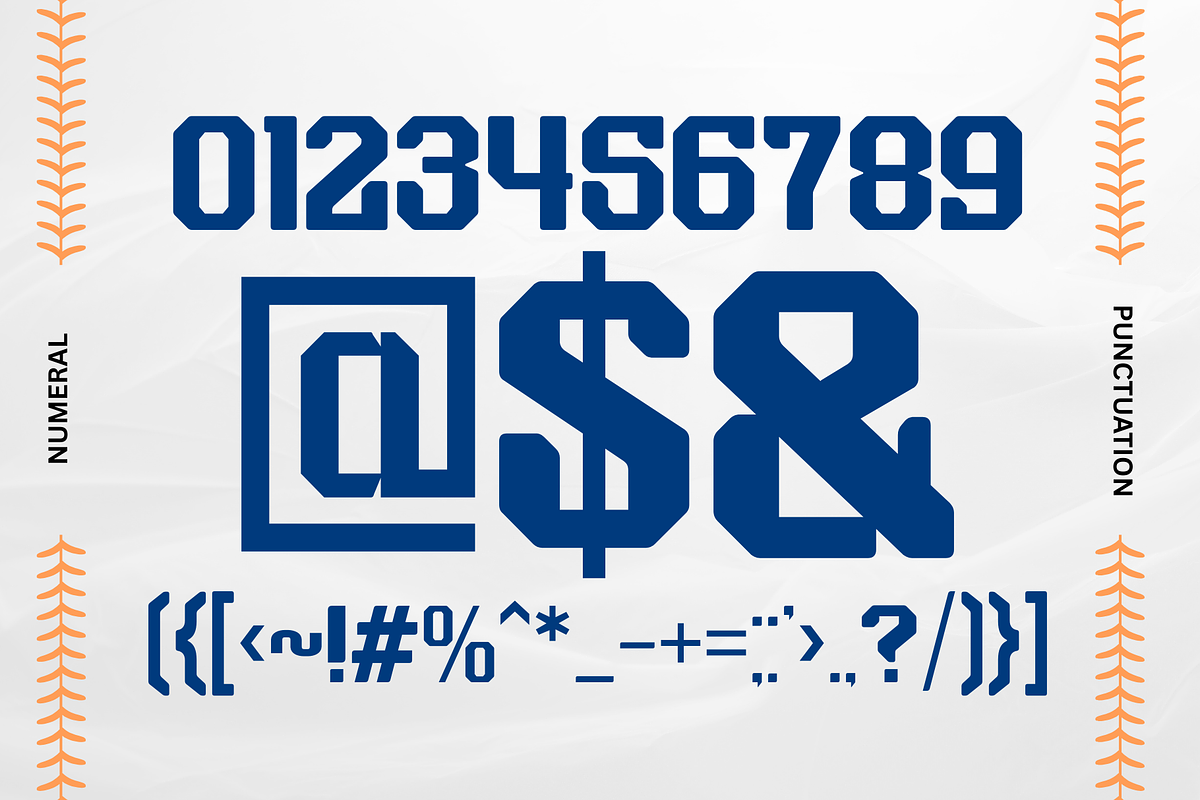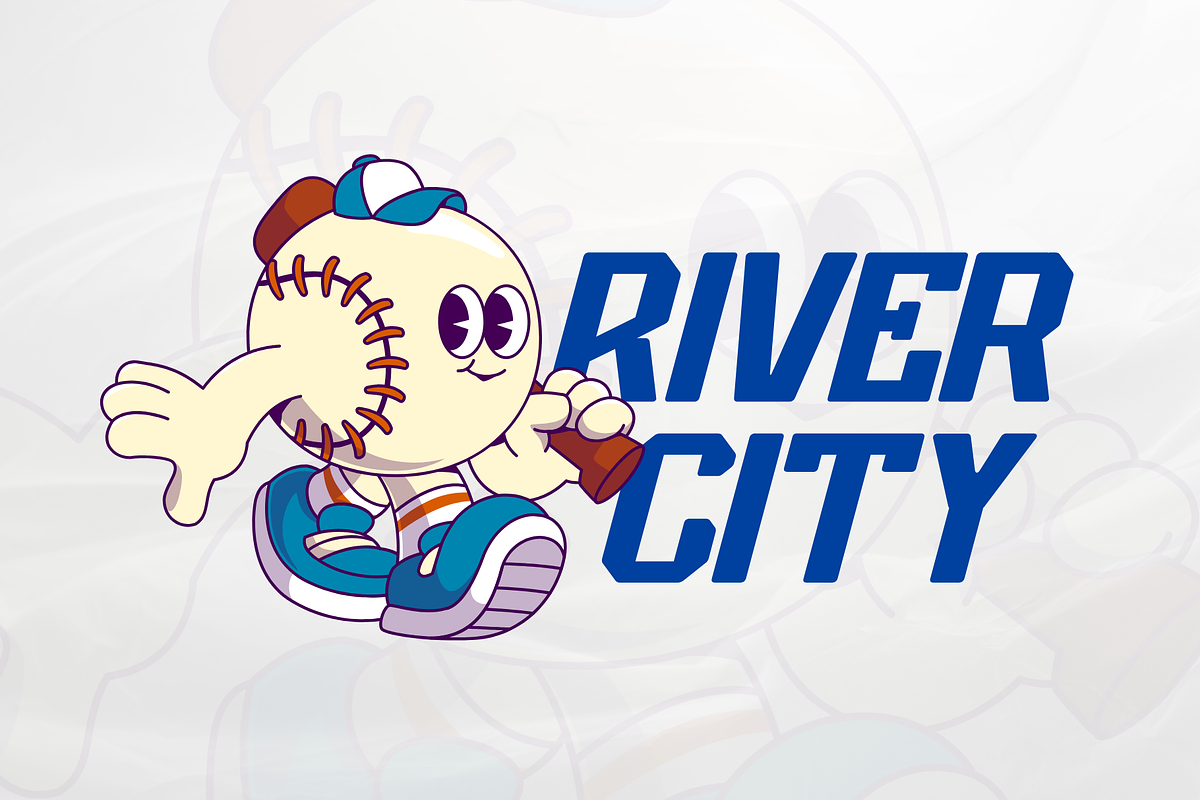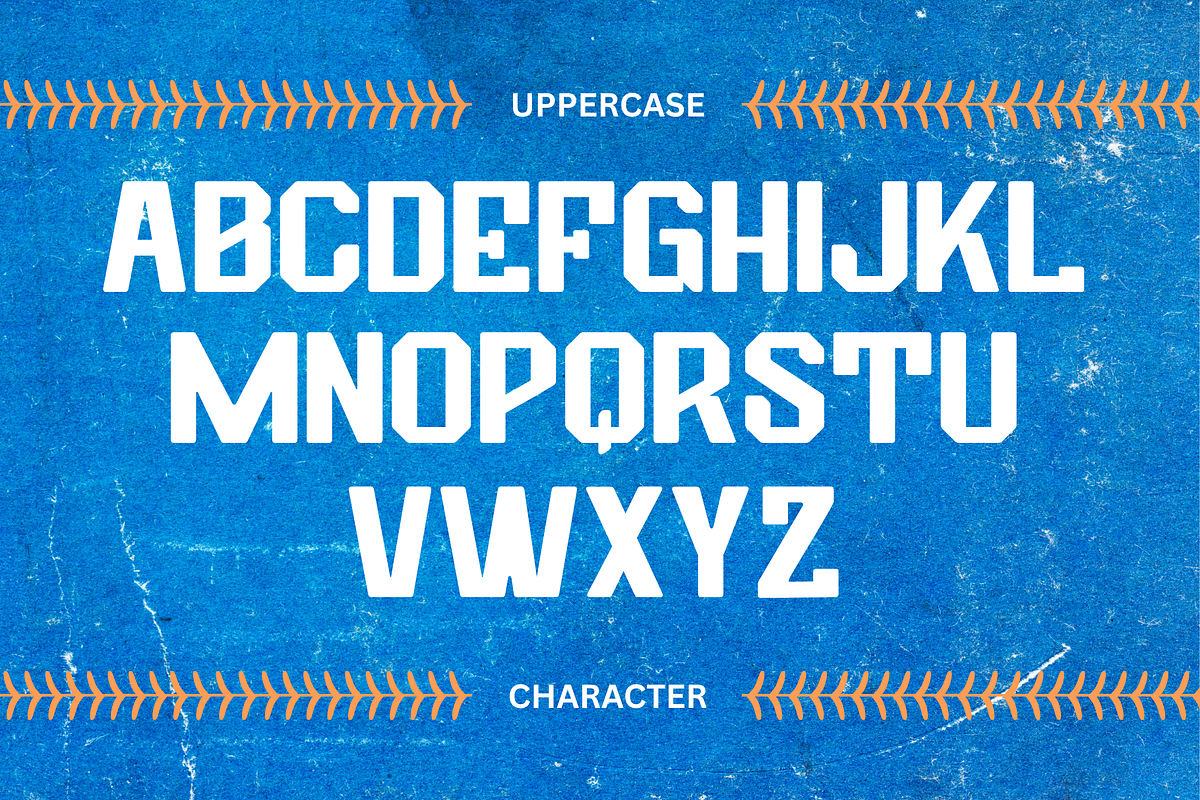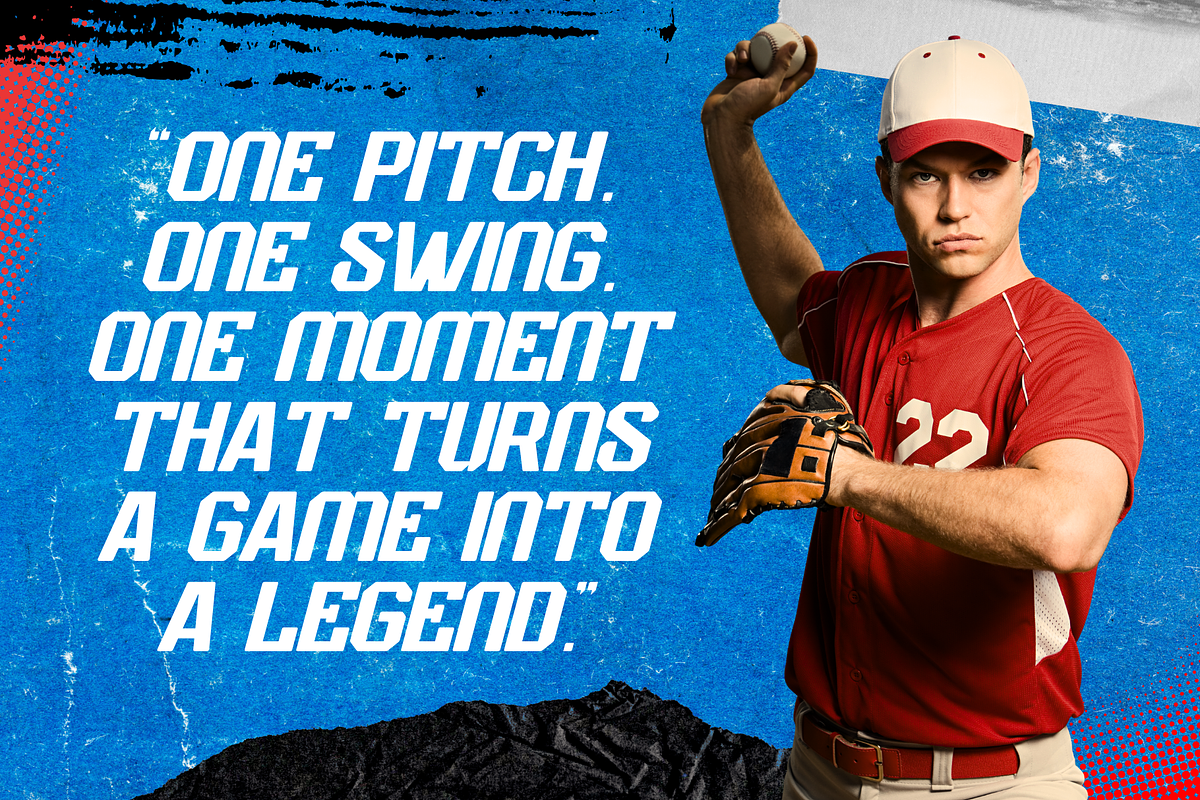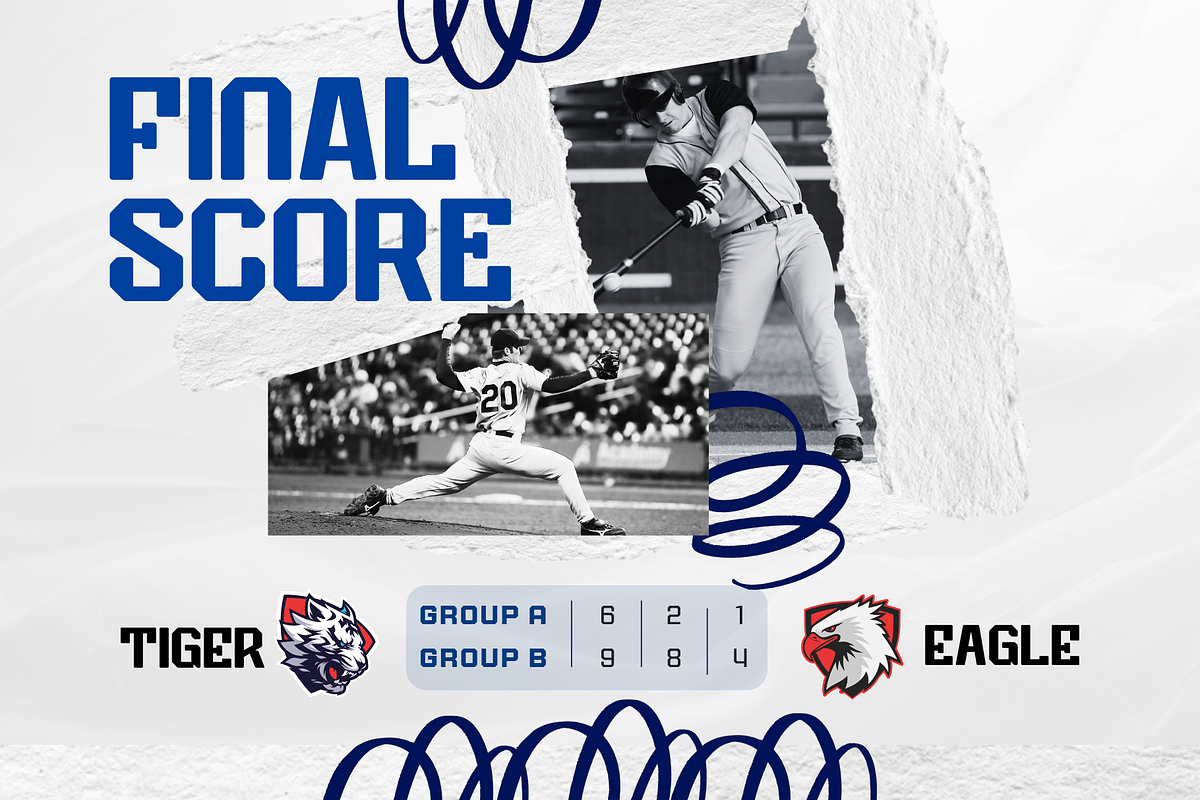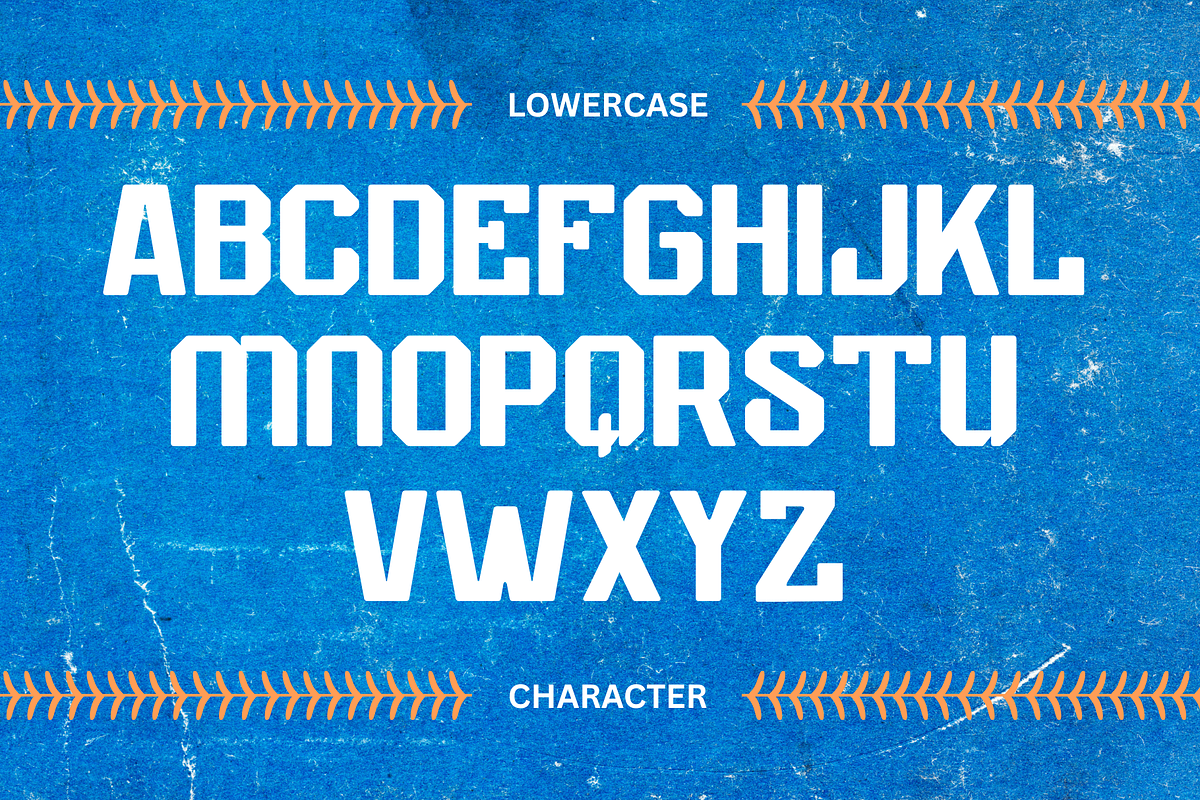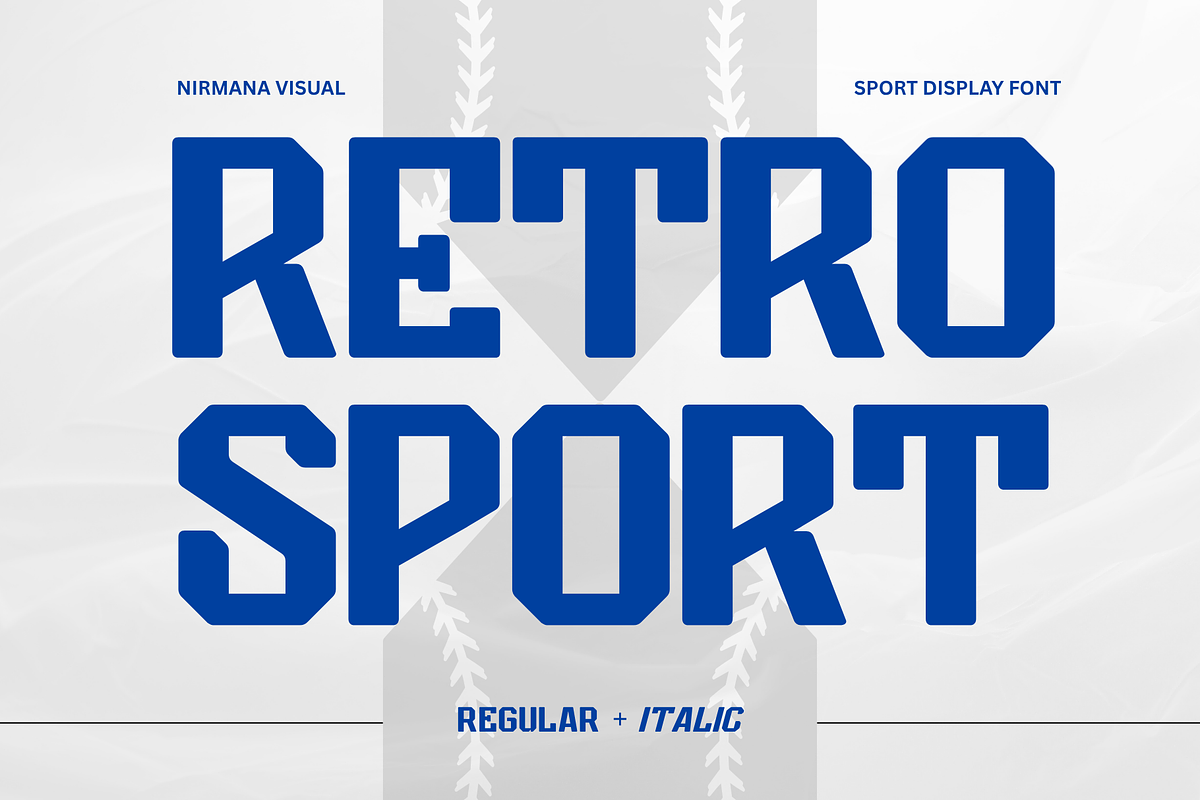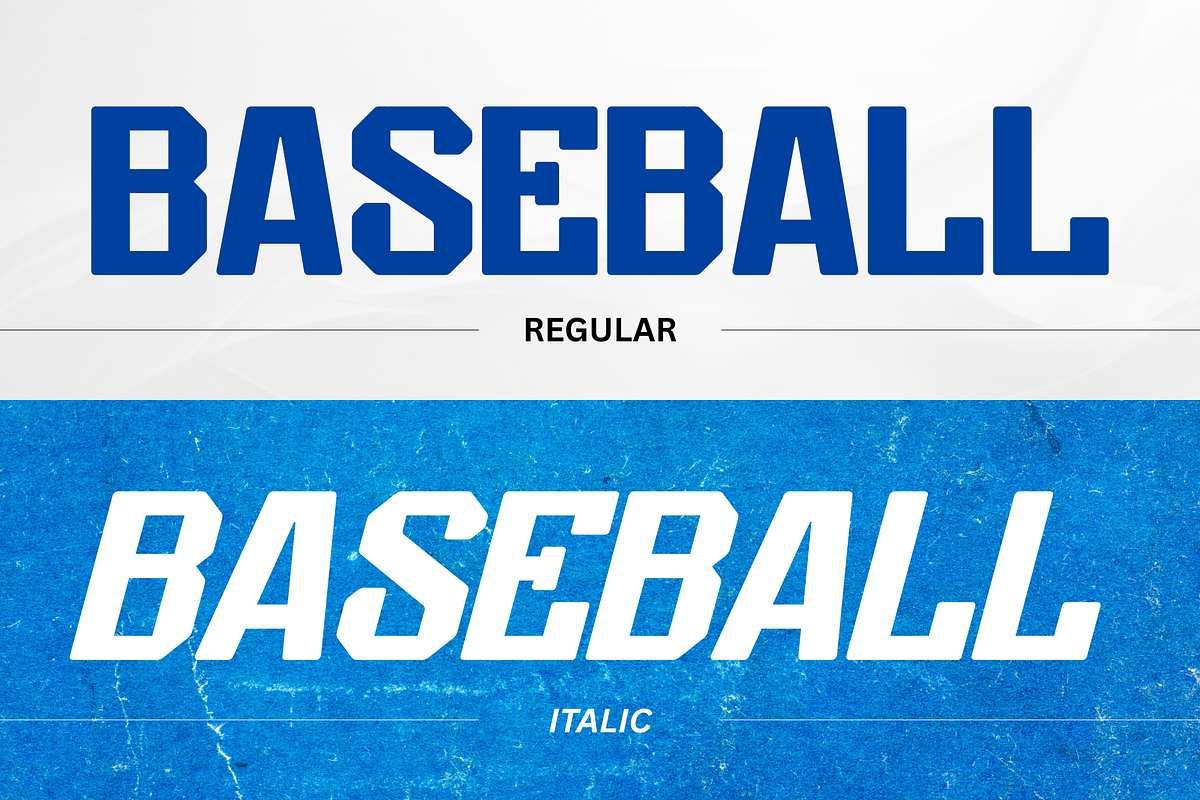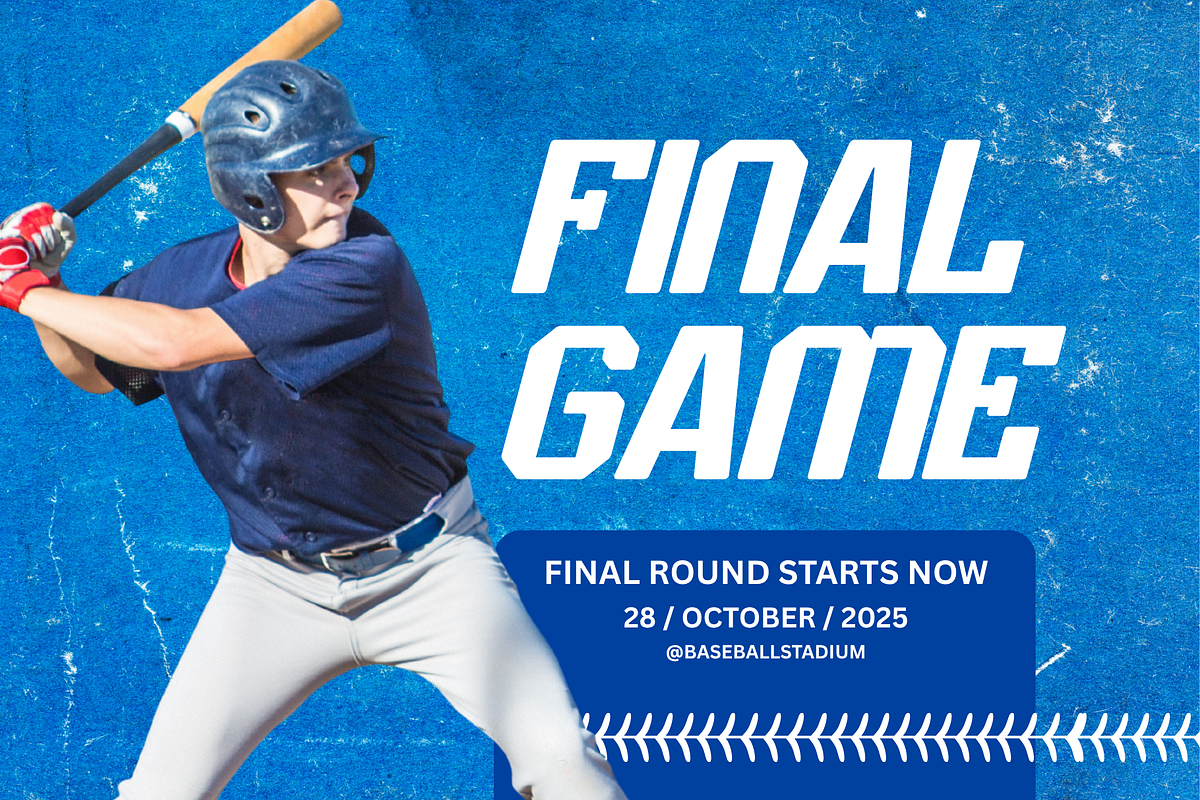
Retro Sport - Branding Logo Font
Retro Sport is a bold and energetic font designed for baseball-inspired designs and vintage logo branding. Available in Regular and Italic styles, it captures the spirit of classic sports typography with smooth curves, clean lines, and strong visual impact. Perfect for team logos, posters, and retro merchandise, Retro Sport brings nostalgic energy and timeless charm to any project that celebrates athletic passion and style.